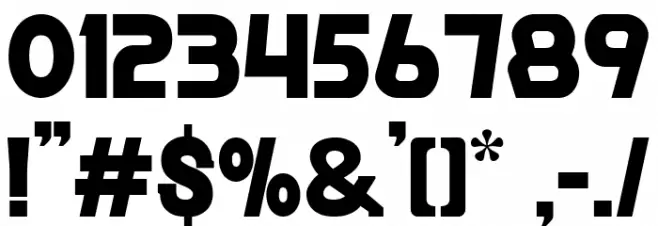
Ranked Sports Font
Ranked Sports Description
This font features bold, impactful characters with a strong presence, making it ideal for attention-grabbing designs. The uppercase letters are robust and well-defined, while the numerals are equally bold, ensuring readability and emphasis. The special characters maintain the same weight and style, providing a cohesive look across all text elements. Its thick strokes and uniform weight give it a powerful and assertive appearance, suitable for sports-related themes or any project requiring a dynamic and energetic vibe.
A bold, impactful font with strong, uniform characters from Regular fonts.
- Proposed Projects: Ideal for sports branding, posters, headlines, and any design needing a bold statement.